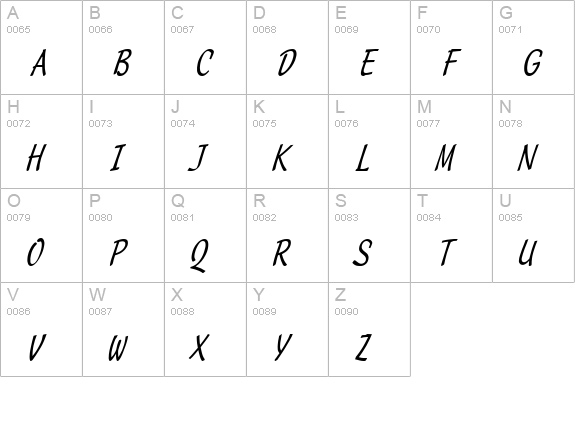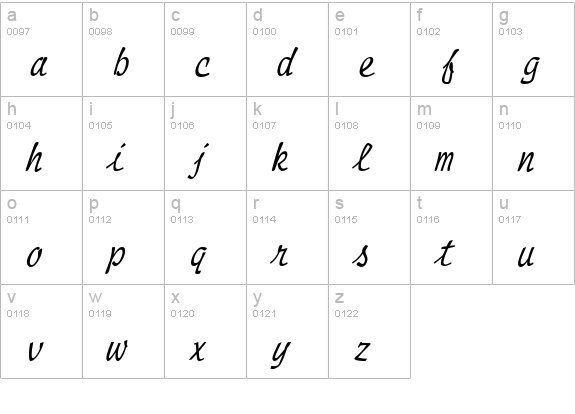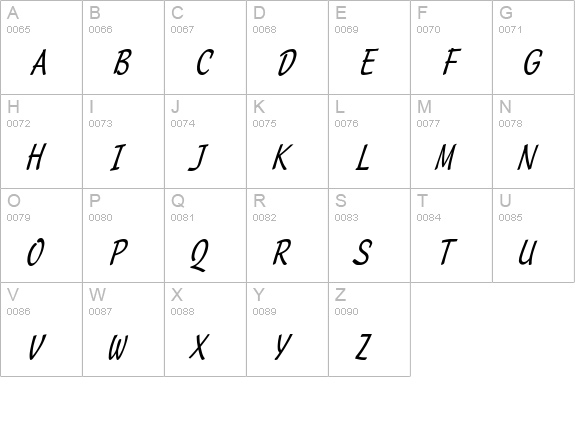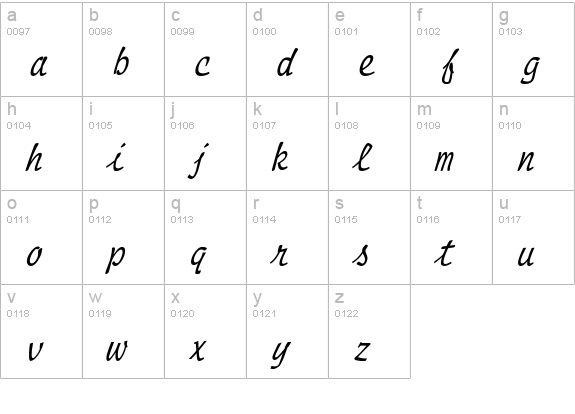
Manuscript Condensed Italic is a distinctive, condensed-width, italic variant in the Manuscript typeface family \xE2\x80\x94 well suited to design and typography projects.
Manuscript Condensed Italic font is a stunning display of elegance and sophistication. With its sleek and slender design, this font effortlessly captures attention and adds a touch of refinement to any project. The condensed letterforms create a sense of dynamism and efficiency, making it perfect for headings, titles, and logos. The italicized slant of this font adds a sense of movement and flair, making it ideal for conveying a sense of energy and creativity. Whether used in print or digital media, Manuscript Condensed Italic instantly elevates the overall aesthetic and creates a captivating visual impact. But what truly sets Manuscript Condensed Italic apart is that it is freely available to download at FontsMarket.com. This means that you can effortlessly enhance your design projects without any additional cost. As a versatile typeface, it can be utilized in a wide range of design applications, from branding and advertising to web design and packaging. With its subtle curves and graceful strokes, Manuscript Condensed Italic embodies a sense of timelessness and elegance. It effortlessly combines traditional calligraphic elements with a modern twist, resulting in a font that is both classic and contemporary. So, whether you're a professional designer looking to add a touch of sophistication to your work or an individual seeking to spruce up your personal projects, Manuscript Condensed Italic is the perfect choice. Its captivating beauty and free availability make it an invaluable asset in the world of typography. Download Manuscript Condensed Italic today at FontsMarket.com and unlock a world of design possibilities.